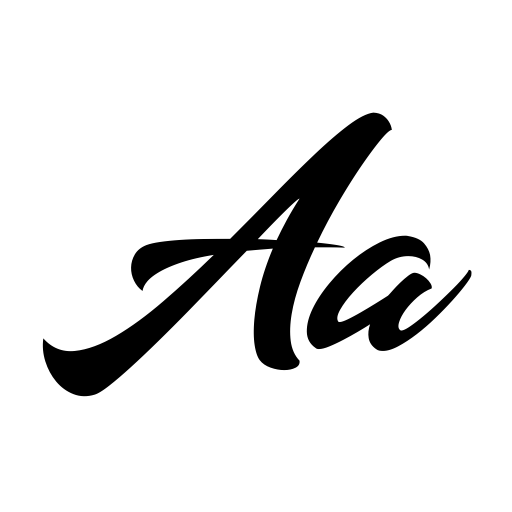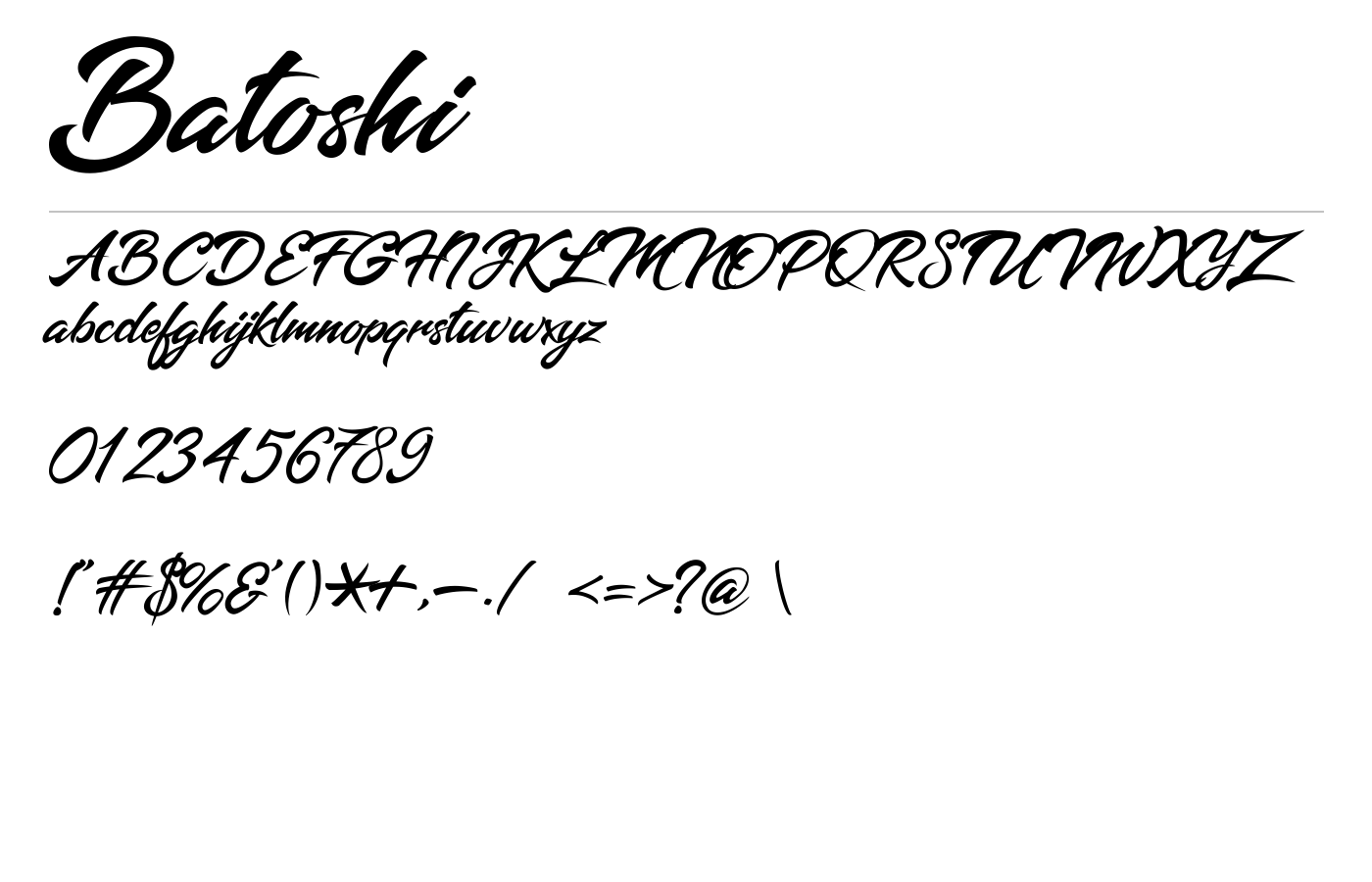
Batoshi is a stylish script font with a smooth, flowing design that exudes elegance and sophistication. Its moderate contrast and slightly condensed letterforms make it perfect for upscale branding, invitations, and artistic headlines, lending a refined yet approachable personality to any project. This font works especially well where a touch of handwritten charm and class is desired.
Batoshi Font
About Batoshi Font
| Font family | Batoshi Font |
| Designer | hustletter |